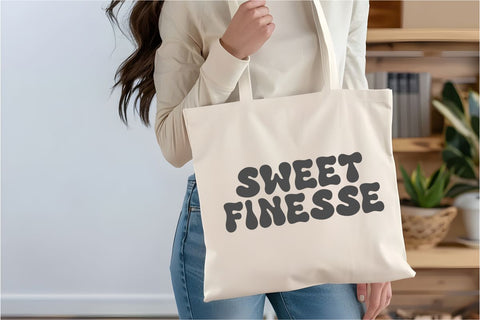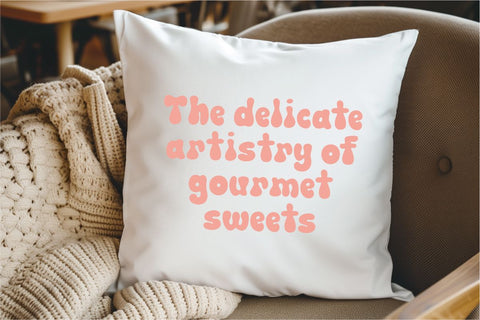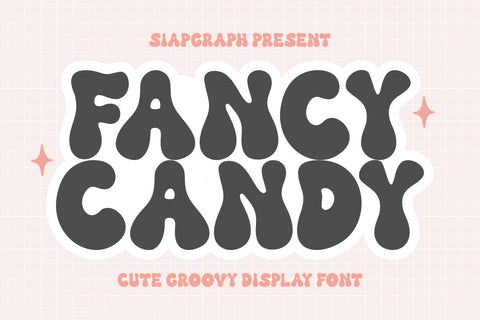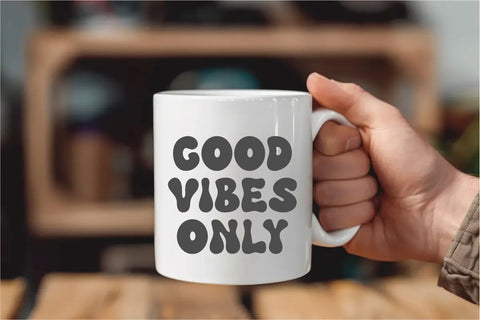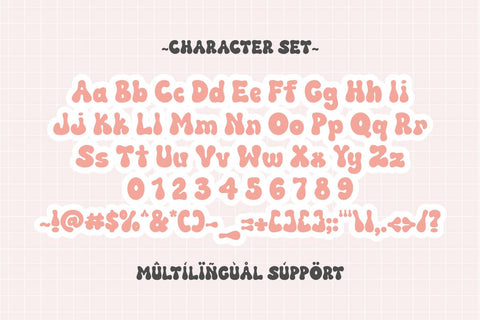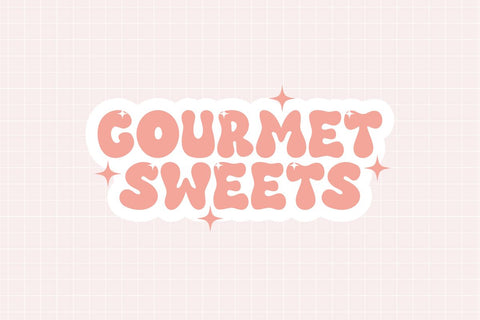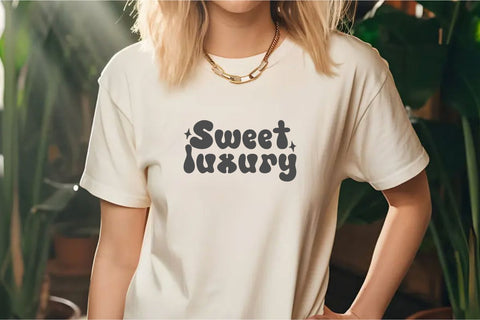
Fancy Candy - Retro Groovy Font
Bring your ideas to life with Fancy Candy, a charming and cute groovy retro font that exudes playfulness! Its soft curves and bold appearance are perfect for creating eye-catching headlines, posters, social media graphics, and branding. Add a dreamy touch to your designs with this delightful font that’s both fun and versatile.